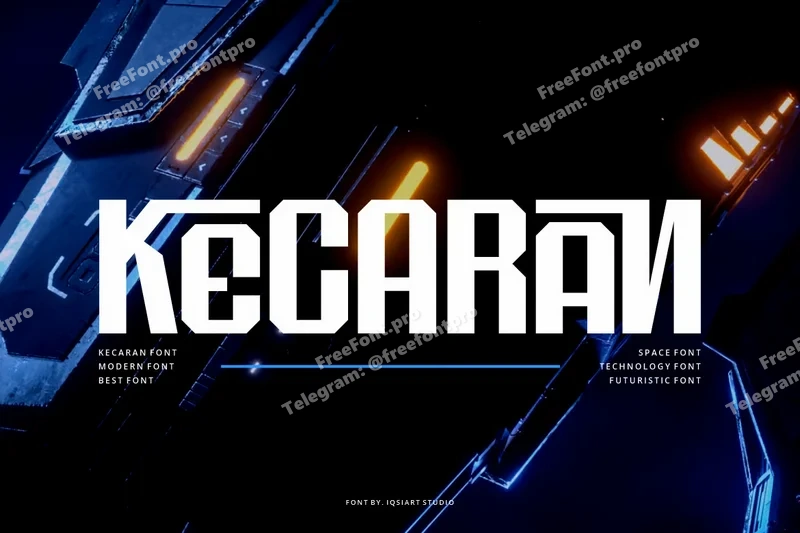
Kecaran – Space Futuristic Font
Kecaran Font is a best and authentic display font. This font can be used for your various needs. We provide various themes and font styles. visit our profile to get a wide variety of themes and different font styles you need.